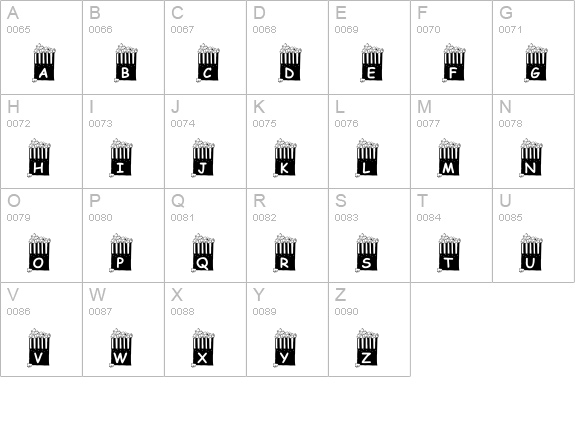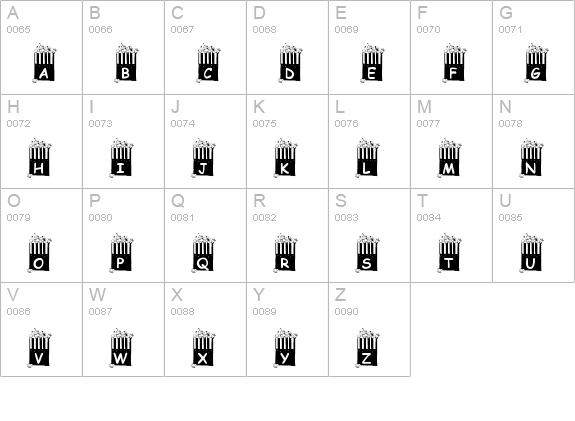
KR Popcorn Time! Font Details
KR Popcorn Time! font is a playful and whimsical typeface that brings a fun and lively touch to your designs. With its quirky and irregular shapes, this font is perfect for adding a unique and creative flair to your projects. Whether you're working on posters, invitations, or social media graphics, KR Popcorn Time! font will make your text stand out with its charming and hand-drawn style. Best of all, KR Popcorn Time! font is completely free to download at FontsMarket.com. Embrace the creativity and energy of this delightful font in your next design project and watch your text come to life with character and charm. Let your imagination run wild with KR Popcorn Time! font and add a touch of whimsy to your creations today!